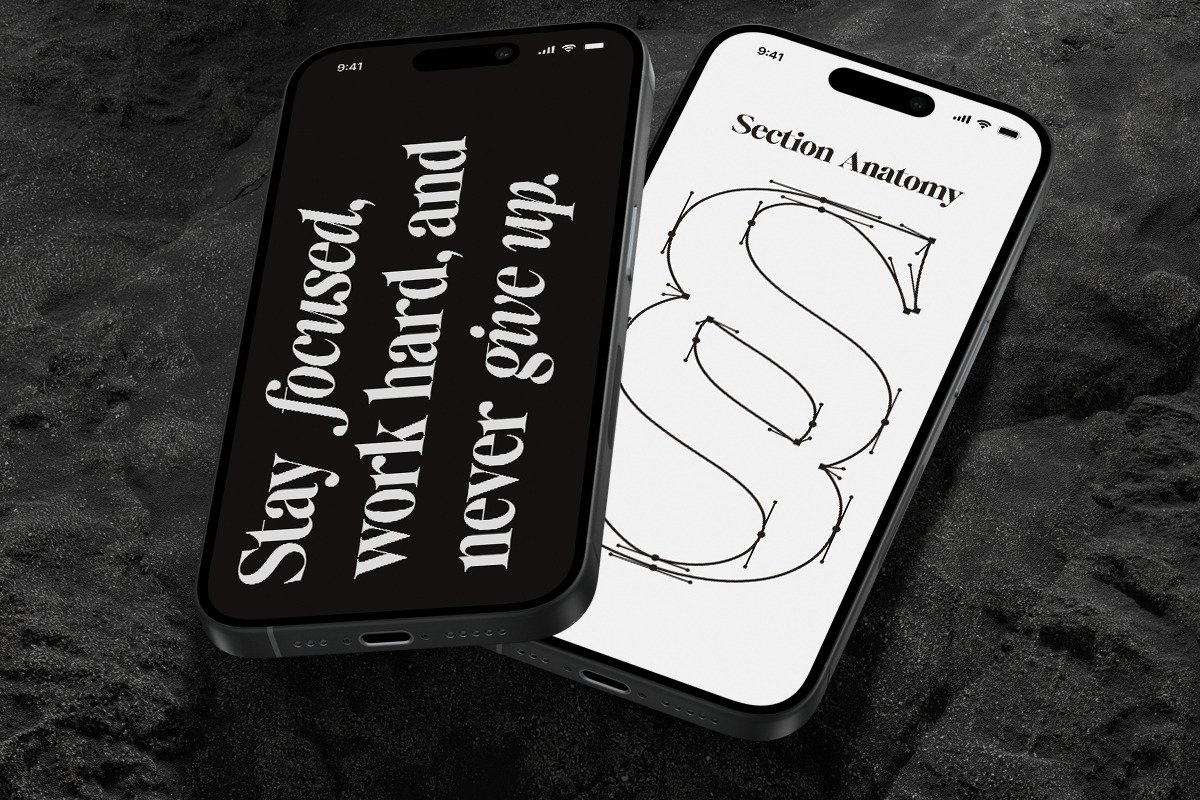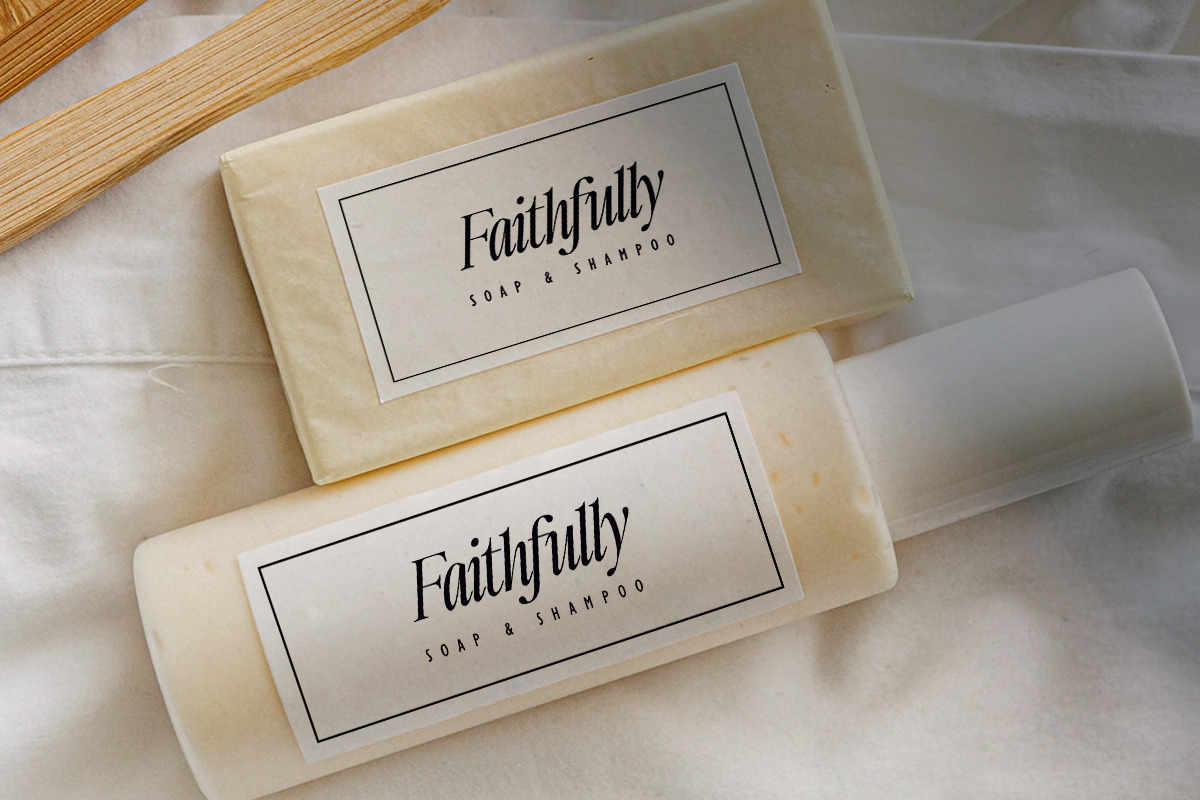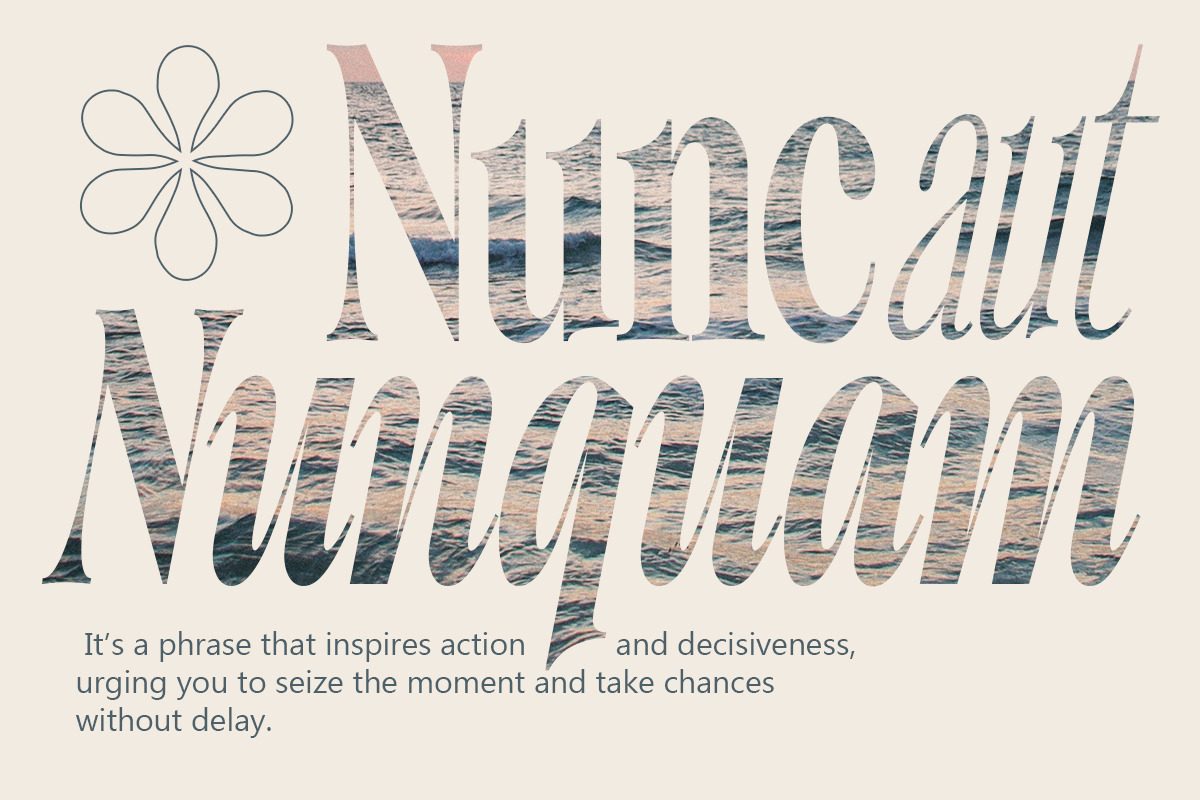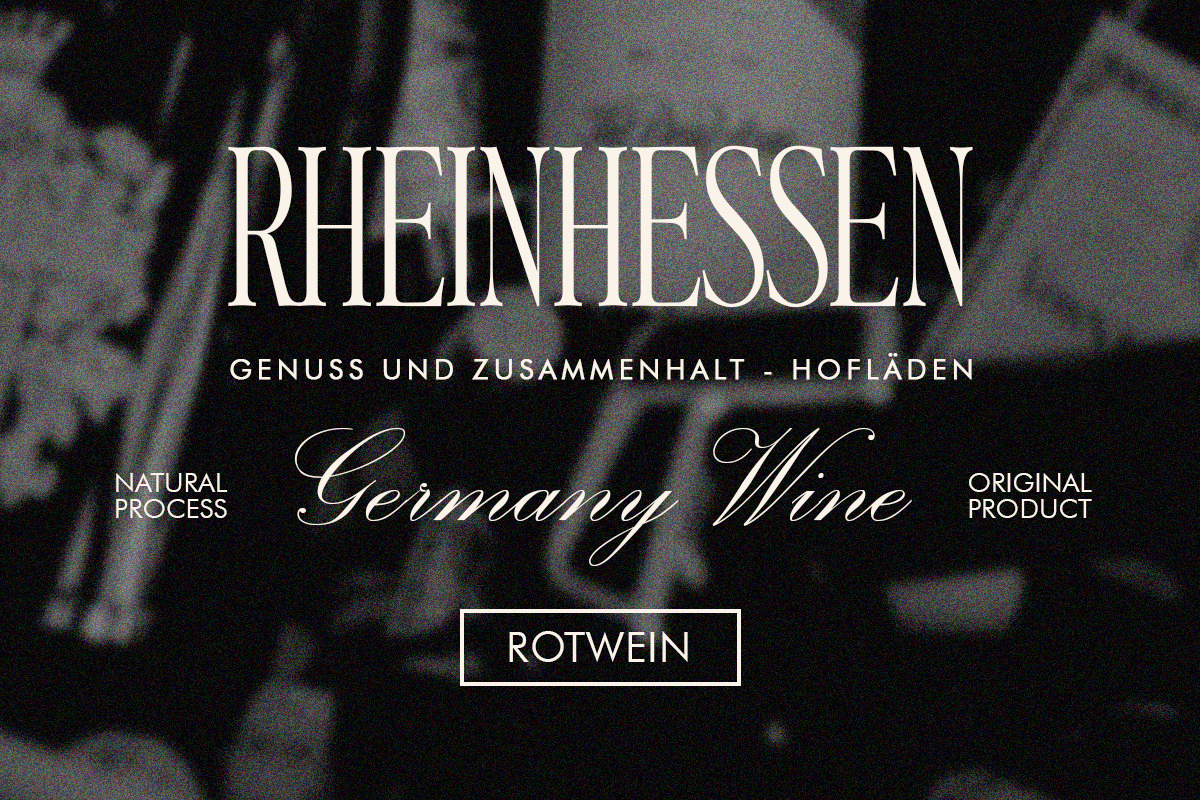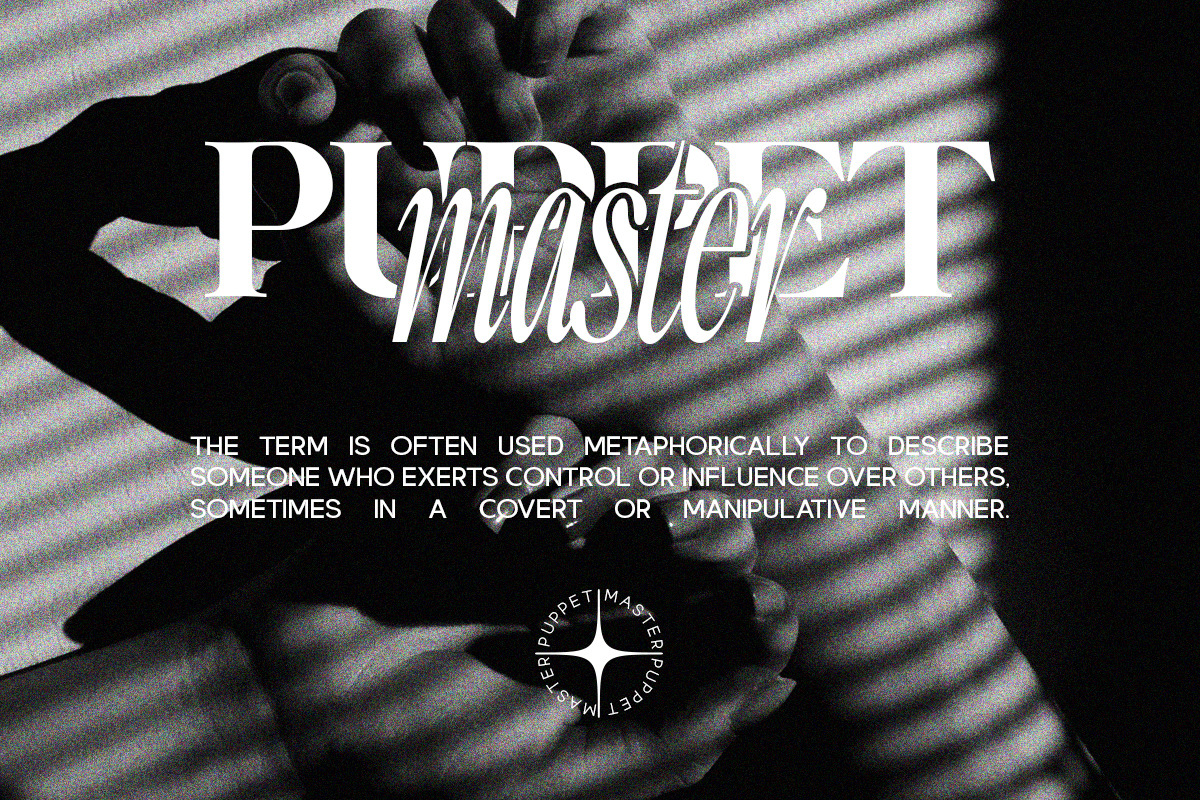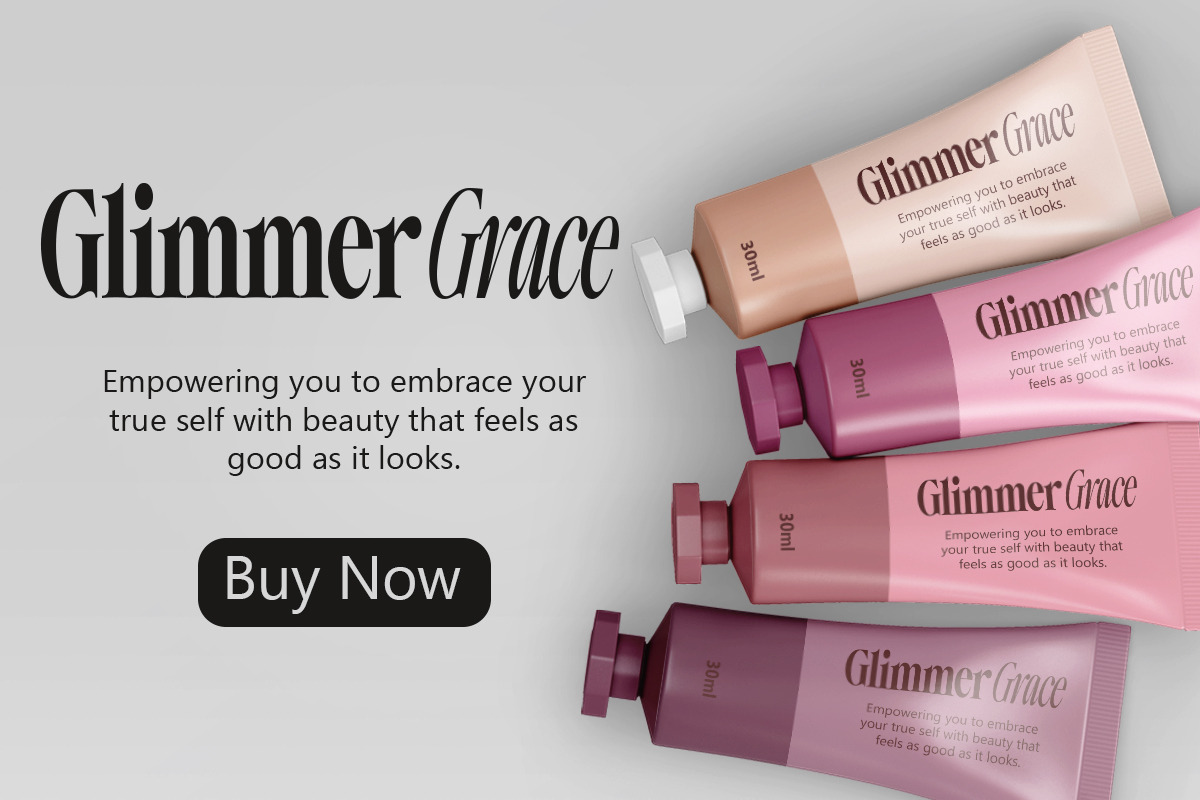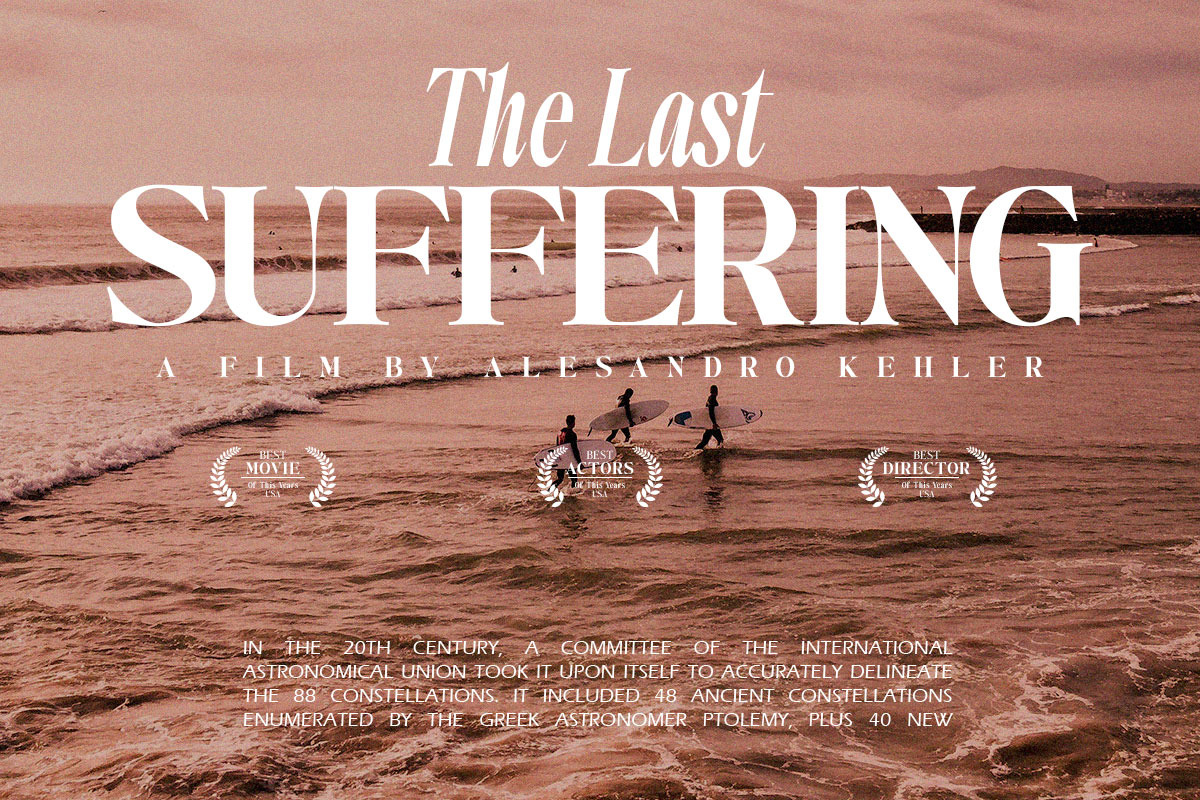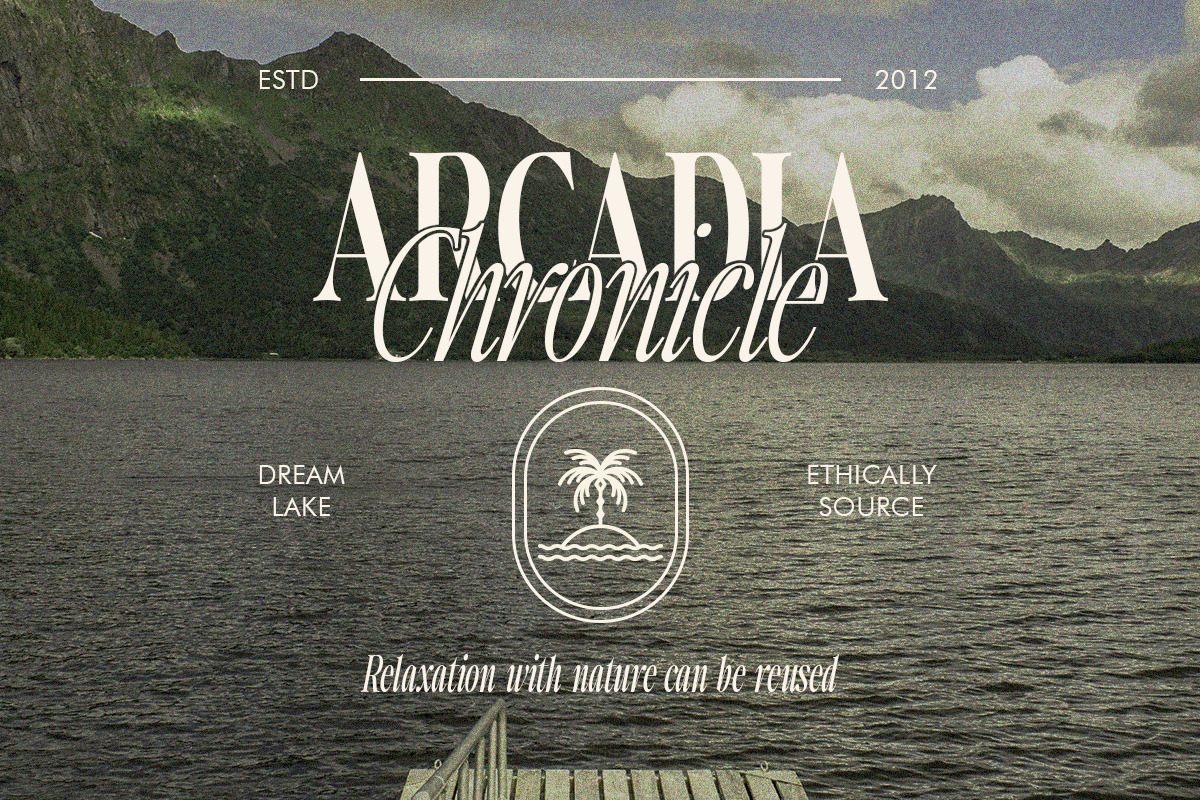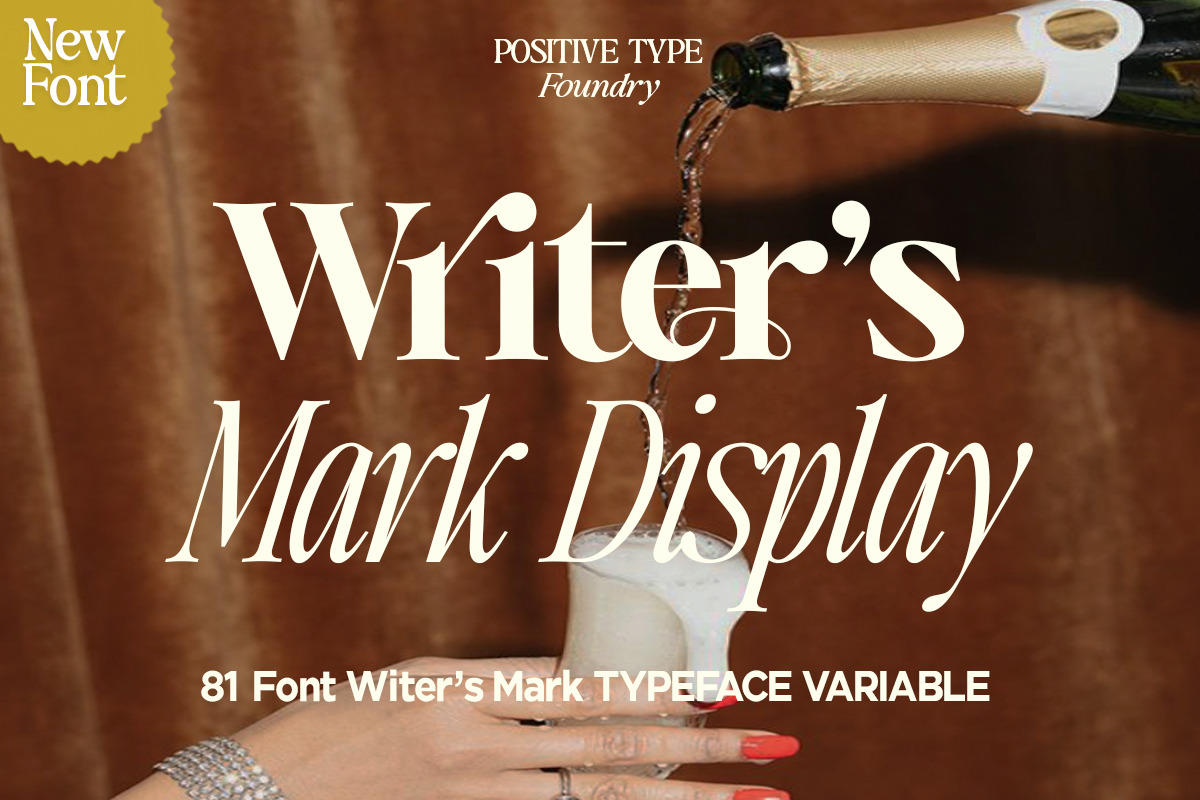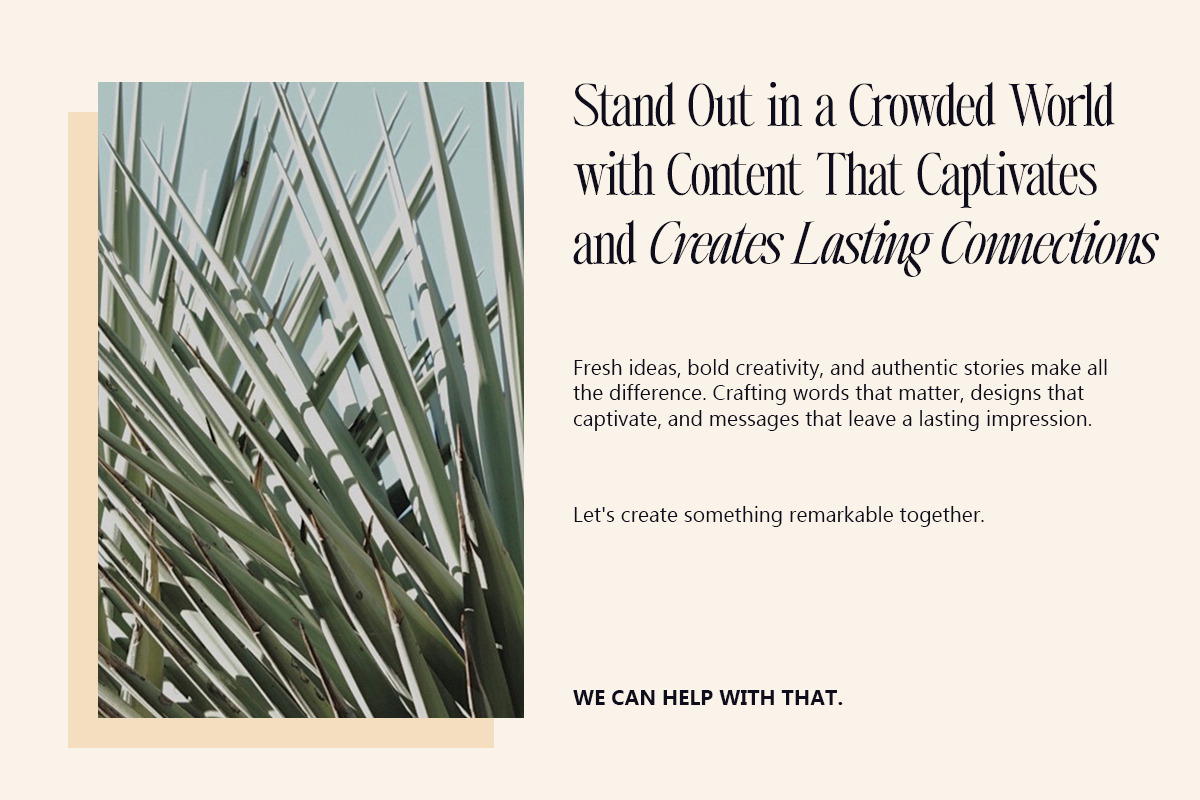
Writer’s Mark Display (81 Fonts)
Positive TypeFoundry presents Writer’s Mark Display | Font Family – a modern, high-contrast transitional serif typeface that exudes a captivating blend of contemporary sophistication and timeless elegance.
Born under the skilled hands of Nur Hayati, the graceful Writer’s Mark Display is here to make a lasting impression. The defining characteristics of Writer’s Mark Display are the striking contrast between thick and thin strokes, smooth graceful ovals, rounded ball terminals, and sharp bracket serifs that make a strong visual impact.
All these qualities make this font ideal for designers who want to create refined and visually stunning compositions that leave an impression. Elegance, sophistication, and exclusivity.